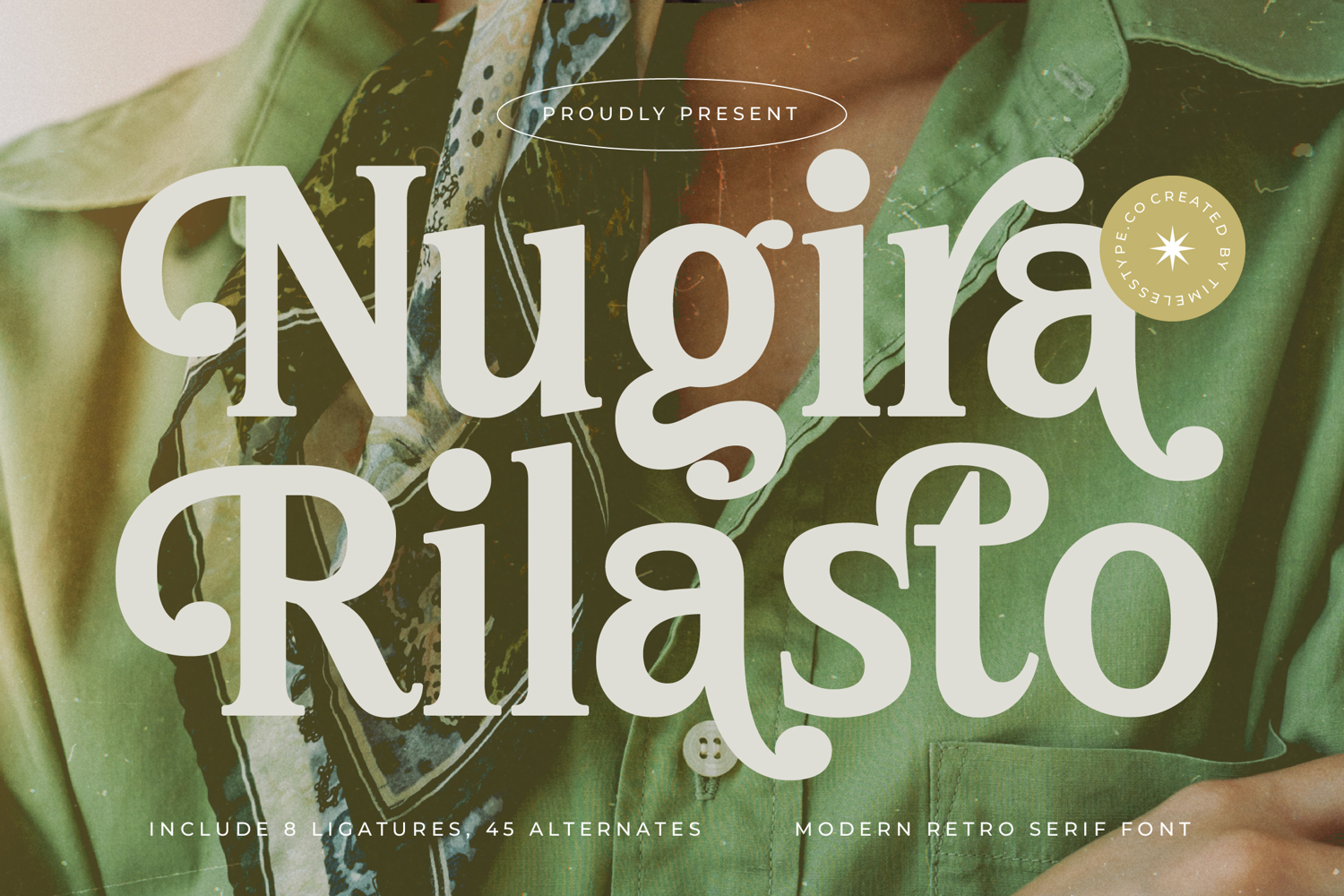
Nugira Rilasto - Modern Retro Serif Font
Nugira Rilasto
Nugira Rilasto italic
Nugira Rilasto - Modern Retro Serif Font
The Nugira Rilasto Typeface is a modern retro serif font with a bold, elegant, and decorative character. Featuring 8 ligatures and 45 stylistic alternates, this font provides full creative freedom to craft typography that is expressive, unique, and rich in classic-modern nuance. Its thick letterforms with curved ornamental details evoke a vintage retro feel while maintaining a modern edge, making it an excellent choice for designs that require an artistic and prestigious touch.
This typeface is highly effective in editorial design, especially for magazine covers, lifestyle articles, and artistic layouts. The ligatures and alternates add variety, ensuring every typographic composition looks more dynamic and refined.
In branding and packaging, Nugira Rilasto is ideal for fashion, perfumes, cosmetics, artisan beverages, and premium lifestyle brands. Its aesthetic creates an exclusive and artistic impression, giving brand identities a more memorable and iconic presence.
For entertainment and promotional design, this font works beautifully on movie posters, album covers, event branding, and art festival promotions. Its retro-modern character enriches visual storytelling with a dramatic and stylish flair.
In the realm of digital design, Nugira Rilasto stands out across social media content, website branding, digital advertising, and motion graphics. With multilingual support, it adapts seamlessly to global projects that demand high-end typographic consistency.
In short, Nugira Rilasto Typeface is a retro serif display font designed to bring classic-modern elegance, decorative charm, and expressive style. Perfect for editorial, branding, packaging, entertainment, advertising, and digital campaigns, this font elevates typography into a timeless, stylish, and character-rich visual element.